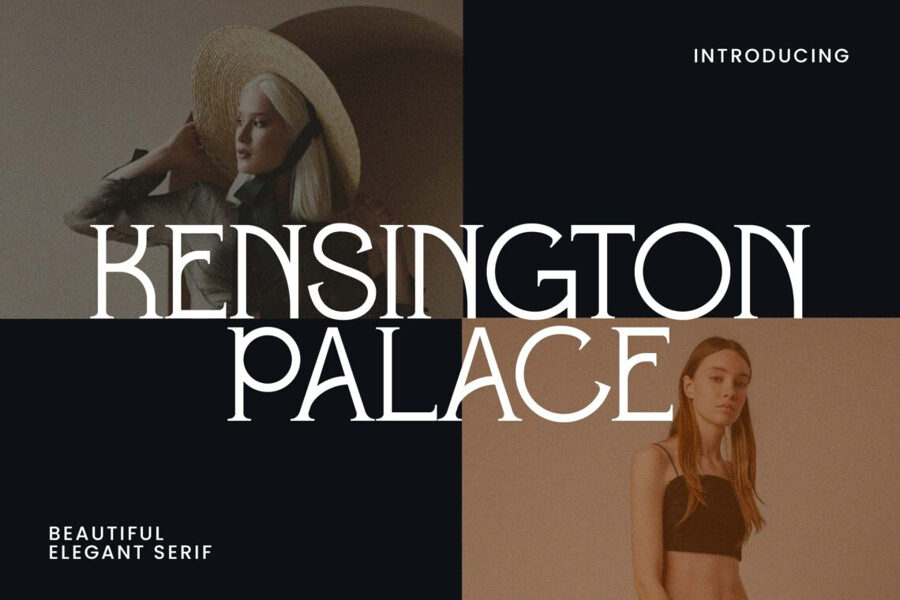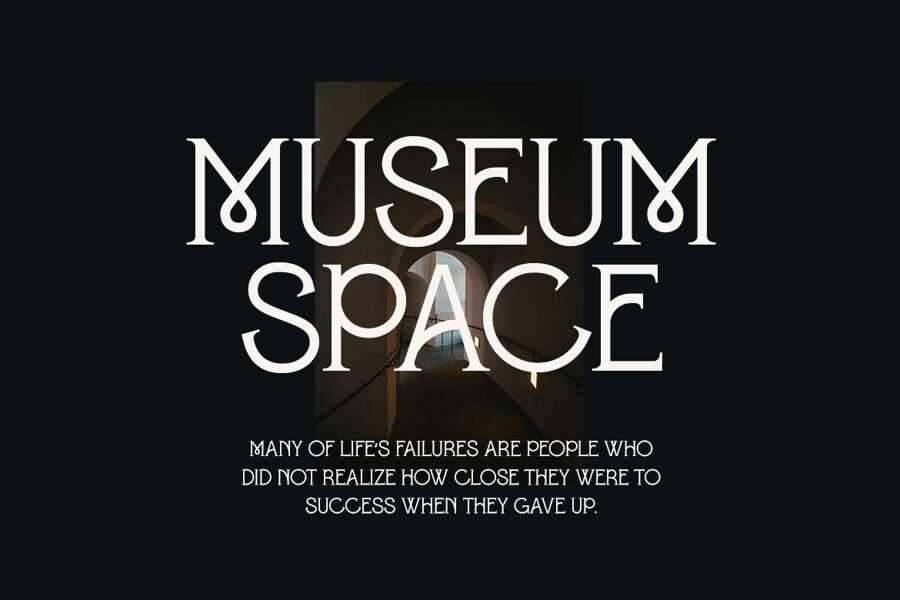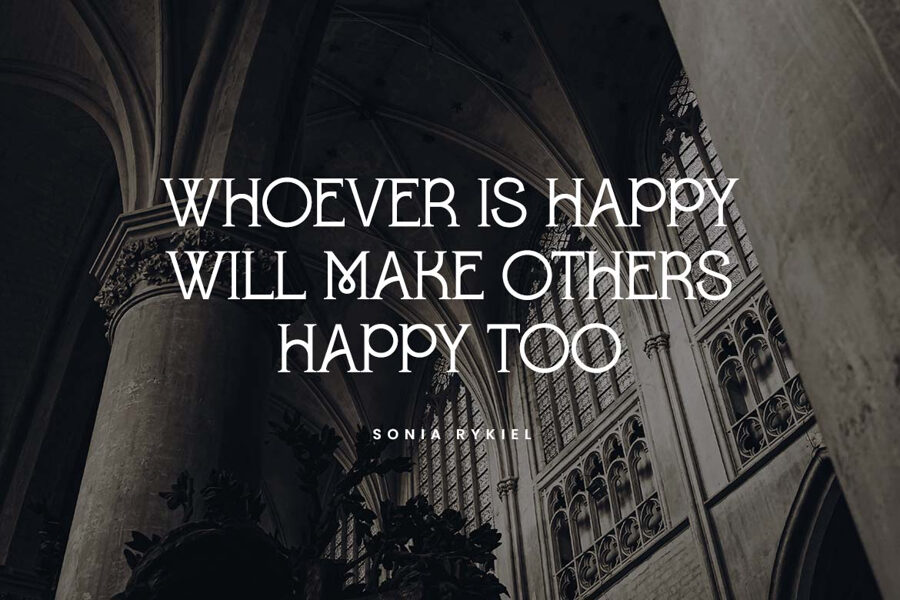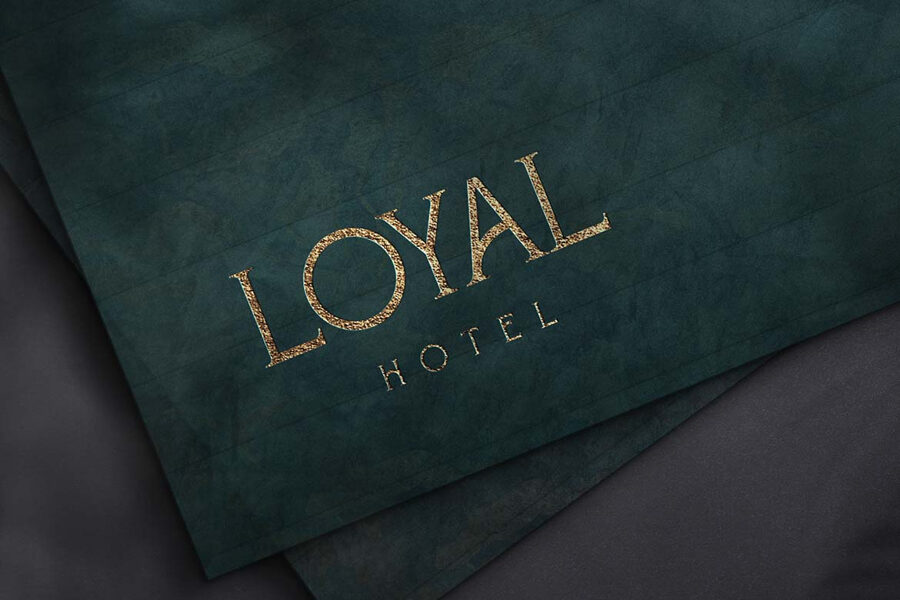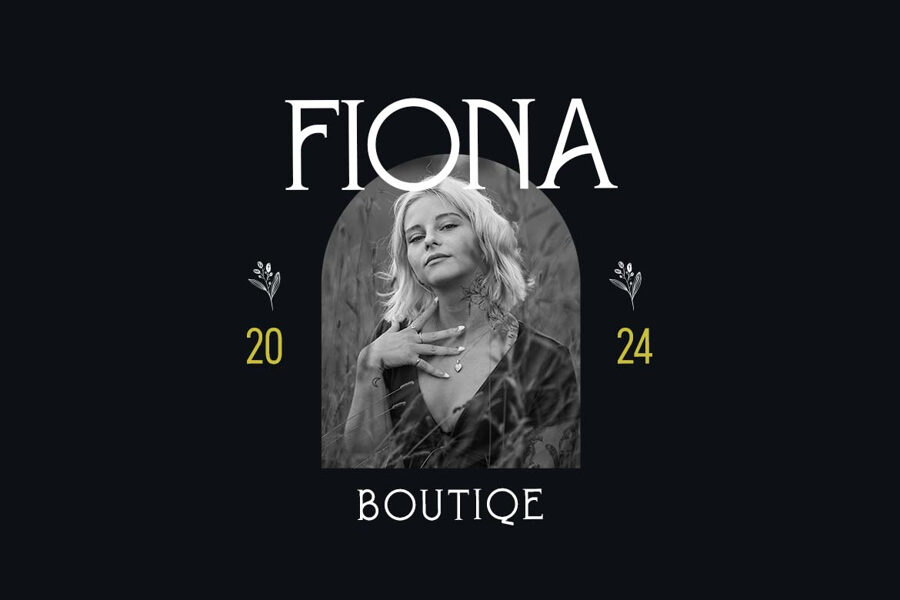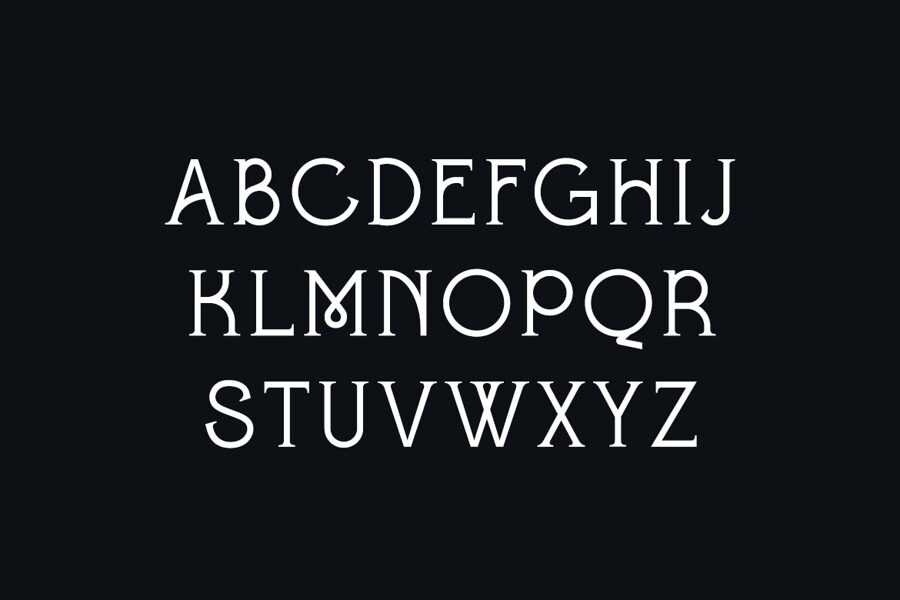
Kensington Palace is an elegant serif font with refined details and a luxurious, fashion-forward appearance. Its graceful letterforms bring sophistication to logos, magazine headlines, invitations, branding, packaging, and stylish editorial designs. Designed by GraphicSauce, the font combines classic beauty with a modern personality, making it ideal for projects that need a polished and distinctive look.